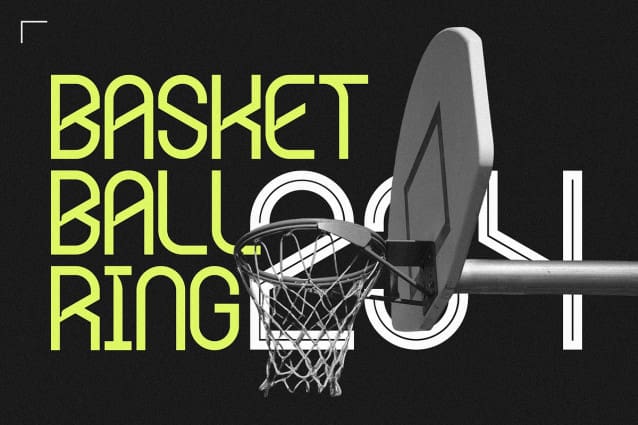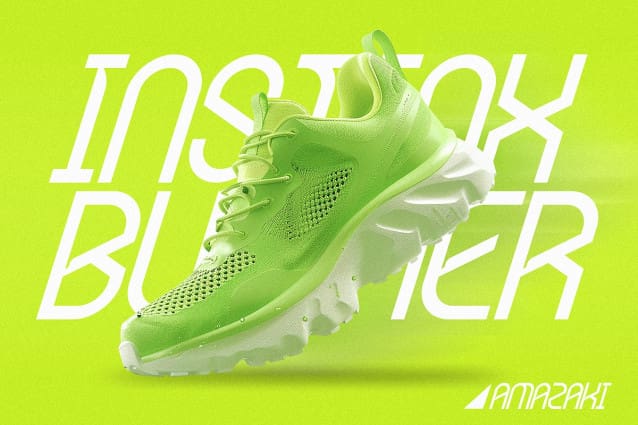
Seventy Five Font
Seventy Five Font is a bold, energetic display font with a sporty flair, perfect for designs that need to stand out with confidence and speed. Its strong, angular design is inspired by athletic aesthetics, making it ideal for sports branding, jerseys, team logos, or dynamic posters.
Powerful & Dynamic: With its bold lines and striking shapes, SeventyFive conveys motion and strength, giving your designs a winning edge. Whether for game-day graphics or promotional materials, this font radiates energy and action.
Versatile in Style: Designed for flexibility, Seventy Five fits perfectly across a range of formats, from digital banners to print media. Its clear, impactful design ensures readability while maintaining a bold, commanding presence.
Bring a competitive spirit to your projects with Seventy Five, the go-to font for sporty, high-energy designs.